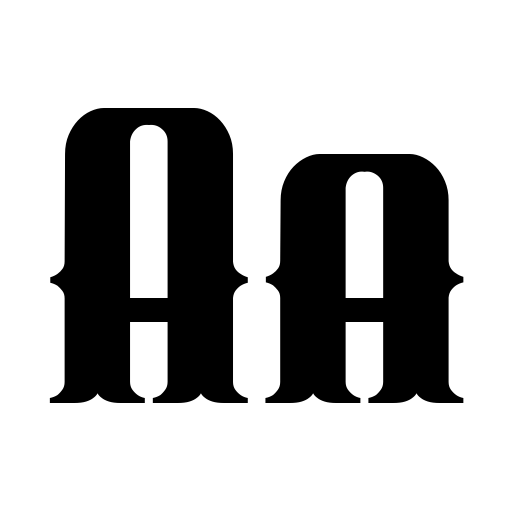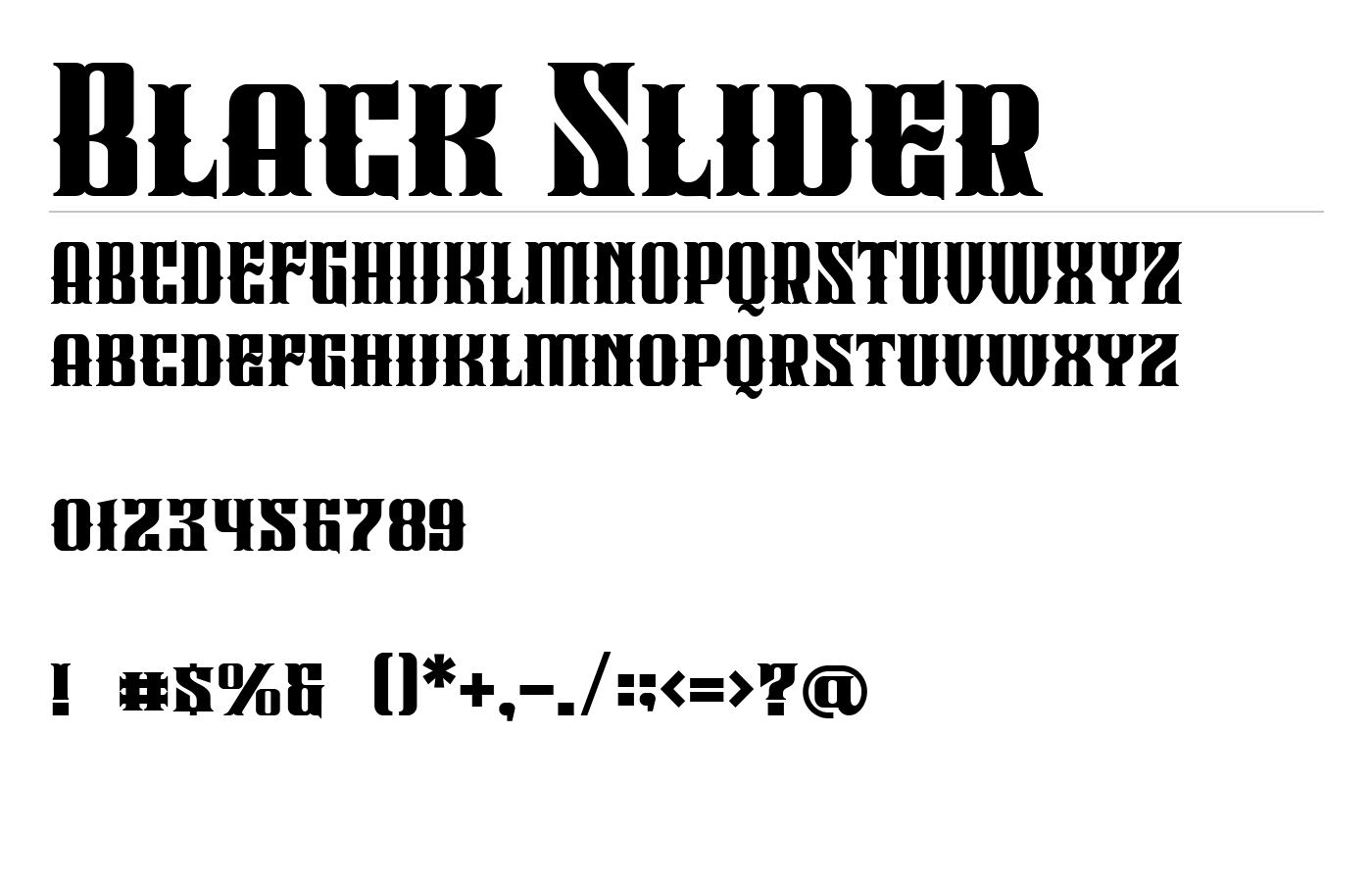
Black Slider is a bold, condensed slab serif font with a striking vintage Western style that features high contrast between thick and thin strokes and sharp, bracketed serifs. Its uppercase-only design with solid, blocky shapes and distinctive letter details conveys a strong, authoritative personality, making it ideal for logos, posters, and headlines where a dramatic, rugged look is desired. This font works best in display settings where its bold presence can capture attention and evoke a nostalgic yet powerful mood.
Black Slider Font
About Black Slider Font